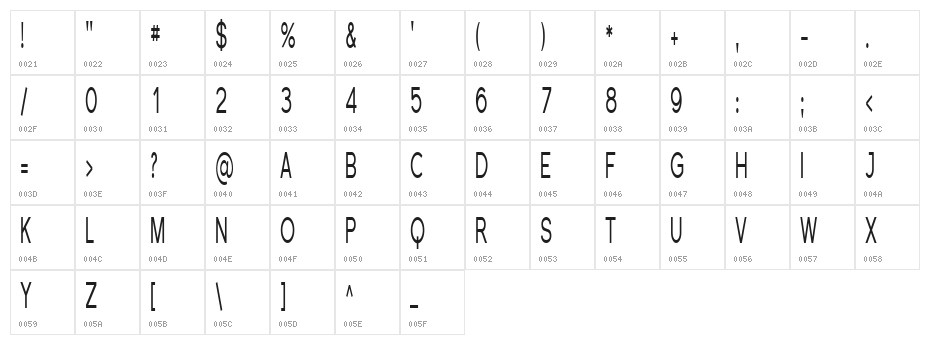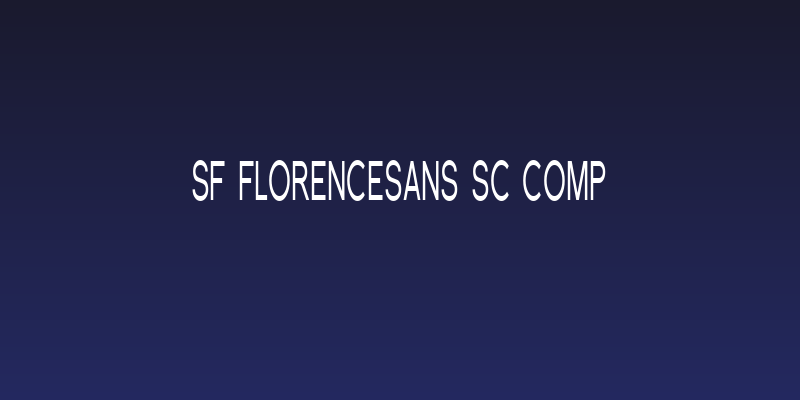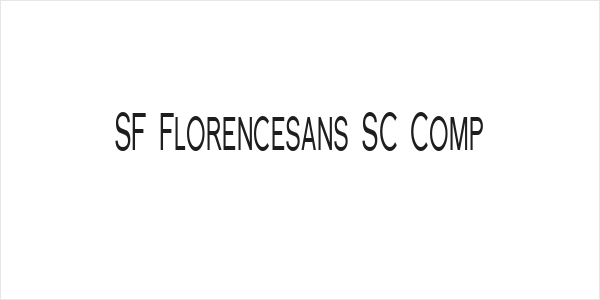
SF Florencesans SC Comp Font
SF Florencesans SC Comp Description
This typeface features a clean and modern sans-serif design with a strong geometric structure. The characters are uniformly constructed, providing a sense of balance and harmony. The uppercase letters are bold and impactful, while the lowercase letters maintain a consistent height, enhancing readability. The numerals are clear and distinct, making them suitable for various applications. Special characters are well-integrated, maintaining the overall aesthetic of the font. The design is versatile, making it suitable for both digital and print media.
| Use Case | Headlines, Logos, Digital media |
| Proposed Projects | Ideal for branding, advertising, web design, and editorial layouts. |